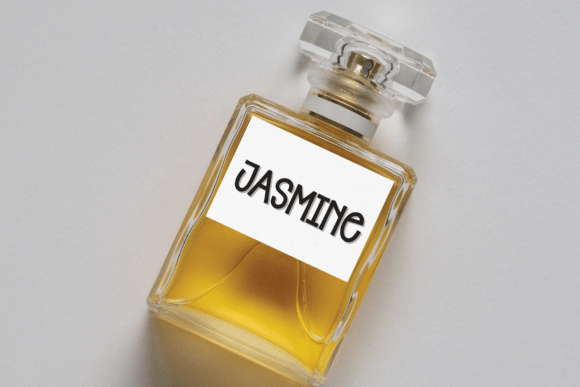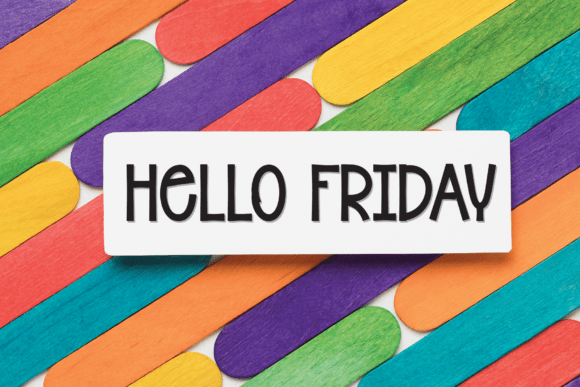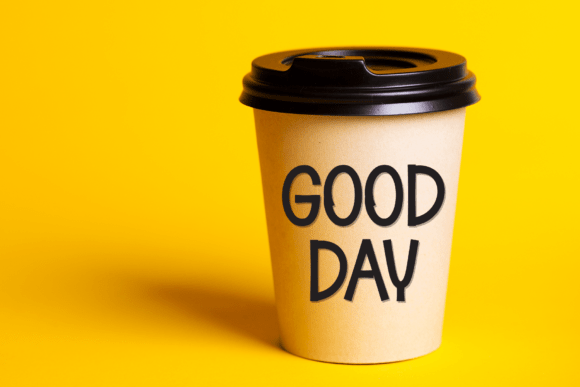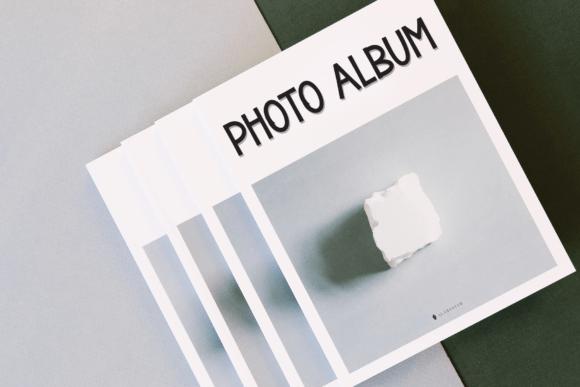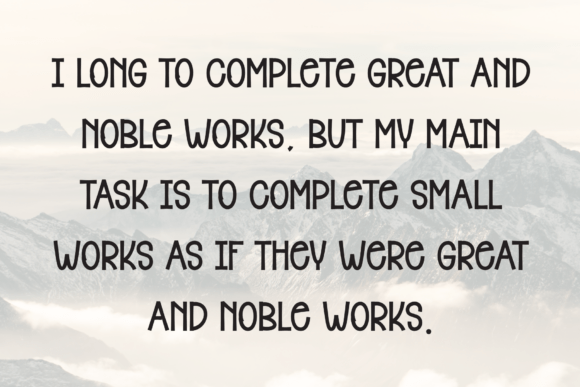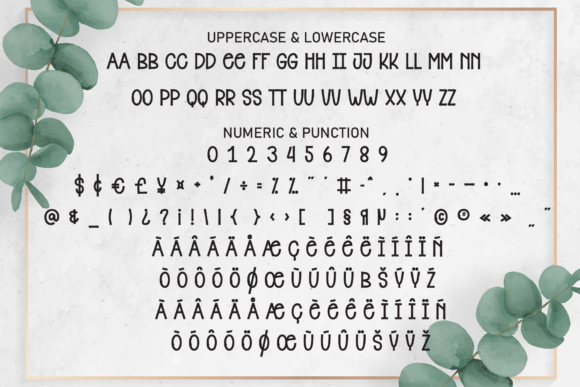
Elevate Your Design Aesthetics with Alphabet Font: A Charming Handwritten Display Font
Are you looking for a font that can add a touch of whimsical elegance to your design projects? Look no further than Alphabet Font, a charming and friendly handwritten display font that’s perfect for a variety of creative endeavors. In this article, we’ll explore the features and benefits of Alphabet Font, and show you how it can help elevate your design aesthetics.
What is Alphabet Font?
Alphabet Font is a beautifully crafted handwritten display font that’s designed to capture the essence of whimsical elegance. With its playful and stylish lettering, this font is perfect for designers and crafters who want to add a personal touch to their work. Whether you’re creating wedding invitations, greeting cards, or any other design project, Alphabet Font is the quintessential element for adding a delightful flourish.
Key Features of Alphabet Font
So, what makes Alphabet Font so special? Here are just a few of its key features:
- Handwritten elegance: Alphabet Font is a carefully crafted handwritten font that exudes elegance and sophistication.
- Whimsical charm: With its playful and curly lettering, Alphabet Font adds a touch of whimsy to any design project.
- Versatility: This font is perfect for a variety of design projects, from wedding invitations and greeting cards to posters and social media graphics.
- Easy to read: Despite its playful nature, Alphabet Font is easy to read and understand, making it perfect for body text and headlines.
Benefits of Using Alphabet Font
So, why should you choose Alphabet Font for your design projects? Here are just a few benefits:
- Personal touch: Alphabet Font adds a personal touch to your designs, making them feel more authentic and unique.
- Emotional connection: The whimsical nature of Alphabet Font helps to create an emotional connection with your audience, making your designs more engaging and memorable.
- Flexibility: Alphabet Font is a versatile font that can be used in a variety of design projects, from formal to informal.
- Time-saving: With Alphabet Font, you can create beautiful designs in no time, saving you time and effort.
Use Cases for Alphabet Font
So, what can you use Alphabet Font for? Here are just a few ideas:
- Wedding invitations: Add a touch of elegance and whimsy to your wedding invitations with Alphabet Font.
- Greeting cards: Create beautiful and personalized greeting cards for any occasion with Alphabet Font.
- Posters and flyers: Use Alphabet Font to create eye-catching posters and flyers for events, promotions, and more.
- Social media graphics: Add a personal touch to your social media graphics with Alphabet Font.
Tips for Using Alphabet Font
Here are a few tips for getting the most out of Alphabet Font:
- Experiment with colors: Alphabet Font looks great in a variety of colors, so don’t be afraid to experiment and find the perfect hue for your design.
- Mix and match: Combine Alphabet Font with other fonts to create a unique and visually appealing design.
- Pay attention to spacing: Make sure to adjust the spacing between letters and words to ensure that your design looks balanced and harmonious.
In conclusion, Alphabet Font is a charming and friendly handwritten display font that’s perfect for designers and crafters who want to add a touch of whimsical elegance to their design projects. With its playful and stylish lettering, this font is versatile, easy to read, and perfect for a variety of creative endeavors. Whether you’re creating wedding invitations, greeting cards, or social media graphics, Alphabet Font is the quintessential element for adding a delightful flourish. So why wait? Download Alphabet Font today and elevate your design aesthetics!